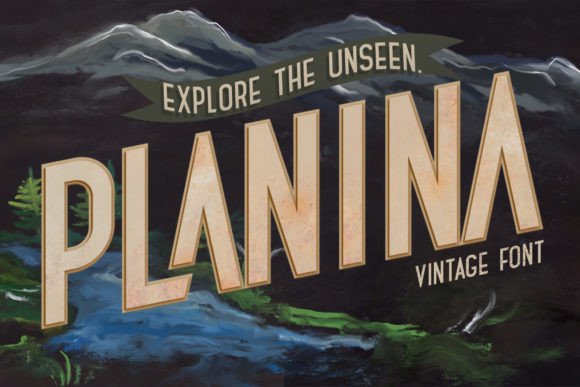
Dive into the world of Planina Font, a striking and assertive display font family that will captivate your designs with its bold presence. Crafted by Leonard Posavec, this font is a masterpiece of visual communication, enabling you to convey your message with clarity and impact.
Planina Font exudes confidence and strength, making it the perfect choice for creating eye-catching headlines, captivating logos, and powerful branding elements. Its bold strokes and sharp angles demand attention, leaving an unforgettable impression on your audience. Unleash your creativity and let Planina Font elevate your designs to new heights.
With Planina Font, you can effortlessly create stunning posters that command attention from across the room. Its bold and distinctive characters will ensure your message cuts through the noise and reaches your target audience. Imagine your poster adorned with Planina Font, becoming a focal point in any setting, whether it's a bustling city street or a crowded exhibition hall.
Unleash your inner artist and utilize Planina Font to craft unique and captivating clothing designs. Let your imagination run wild as you create eye-catching t-shirts, hoodies, and accessories that speak to your brand's personality. Planina Font's bold and distinctive characters will transform your designs into wearable works of art, making a statement wherever you go.
Step into the world of cinema and let Planina Font take your movie titles and screen graphics to the next level. With its bold and assertive presence, Planina Font will captivate your audience from the moment they see your movie poster or opening credits. Imagine your movie title emblazoned across the screen in Planina Font, creating an aura of excitement and anticipation that will leave your audience eager to see what unfolds.
Explore the realm of music and let Planina Font amplify your album covers and gig posters. Its bold and striking characters will make your music stand out from the crowd, capturing the attention of potential fans and leaving a lasting impression. Planina Font will transform your album covers into miniature works of art, enticing listeners to delve into your music and immerse themselves in your sonic creations.
Harness the power of Planina Font to create logos that leave an indelible mark on your audience's minds. Its bold and distinctive characters will ensure your logo stands out from the competition, becoming a symbol of your brand's identity. Planina Font will elevate your brand to new heights, making it instantly recognizable and memorable.